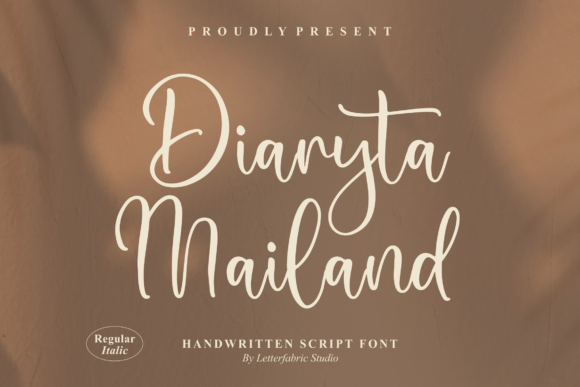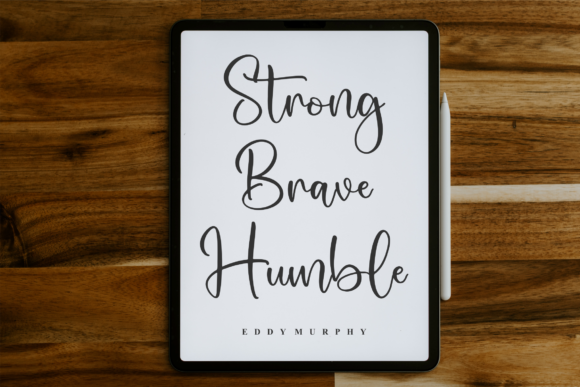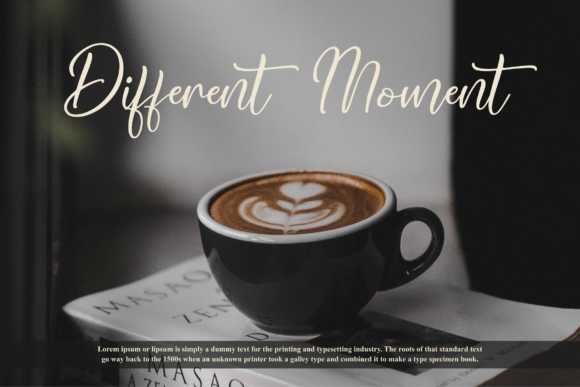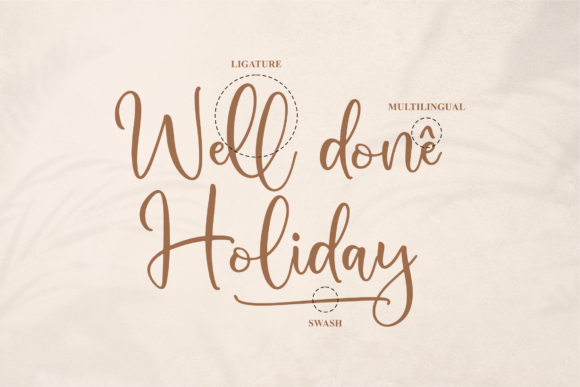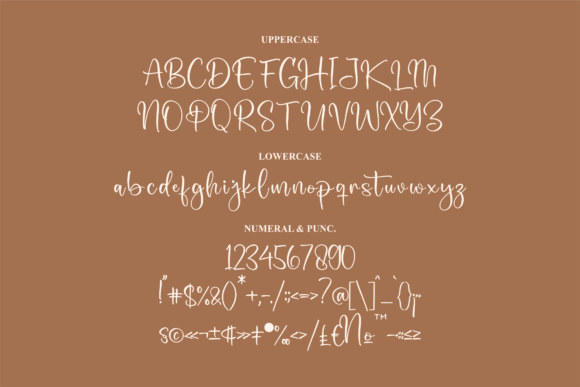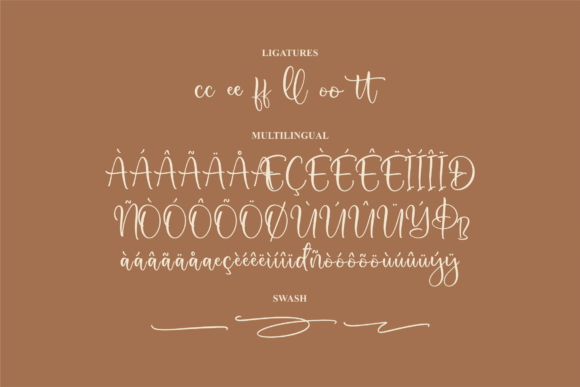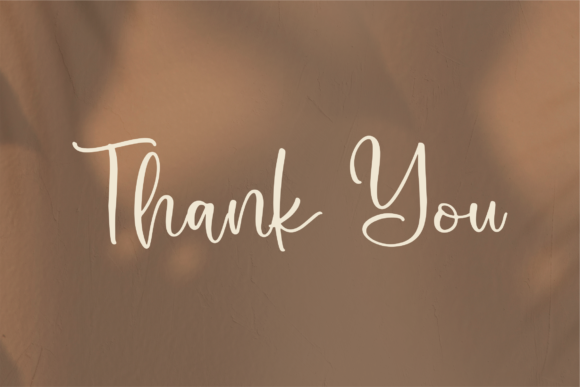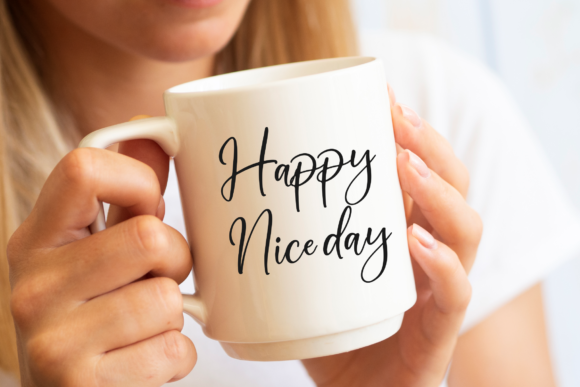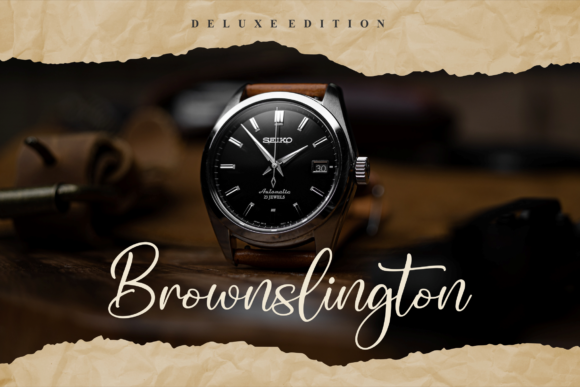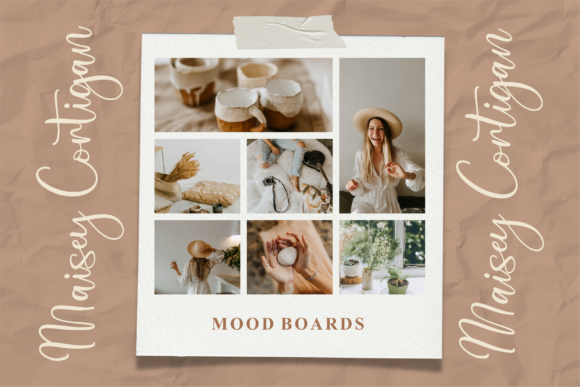
Diaryta Mailand Font
About Diaryta Mailand Font
Meet Diaryta Mailand, a font that exudes a perfect blend of beauty and versatility. This gorgeous script font is your ultimate tool for crafting captivating designs across a wide spectrum of projects. Whether you’re working on logos, branding, or creating memorable quotes, Diaryta Mailand will infuse your creations with elegance and charm.
Logos come to life with Diaryta Mailand’s graceful and flowing characters. Each letter is a work of art, meticulously crafted to convey sophistication and uniqueness. Whether your brand is modern and sleek or timeless and classic, Diaryta Mailand adapts effortlessly to capture your brand’s essence and make a lasting impression.
When it comes to branding, Diaryta Mailand adds a touch of refinement that resonates with your audience. Its handwritten style adds a personal and authentic feel, establishing a connection that goes beyond the visual. Use it on packaging, labels, and promotional materials to elevate your brand’s image and leave a mark.
Crafting quotes and messages becomes a delightful experience with Diaryta Mailand. The fluid strokes and gentle curves of each letter create a harmonious composition that draws the eye and captivates the reader. Whether it’s for social media graphics, posters, or event invitations, Diaryta Mailand adds a layer of charm that enhances the impact of your words.
Diaryta Mailand’s versatility knows no bounds. From homeware designs to mugs, from special event invitations to eye-catching posters, this font effortlessly adapts to any project that craves a touch of elegance. Its exquisite design is complemented by PUA encoding, granting you access to a plethora of glyphs and swashes for endless design possibilities.
Diaryta Mailand is more than just a font—it’s a creative companion that empowers you to bring your vision to life with a touch of beauty and grace. Whether you’re a professional designer or an aspiring creator, Diaryta Mailand is here to transform your projects into stunning works of art that leave a lasting impression.